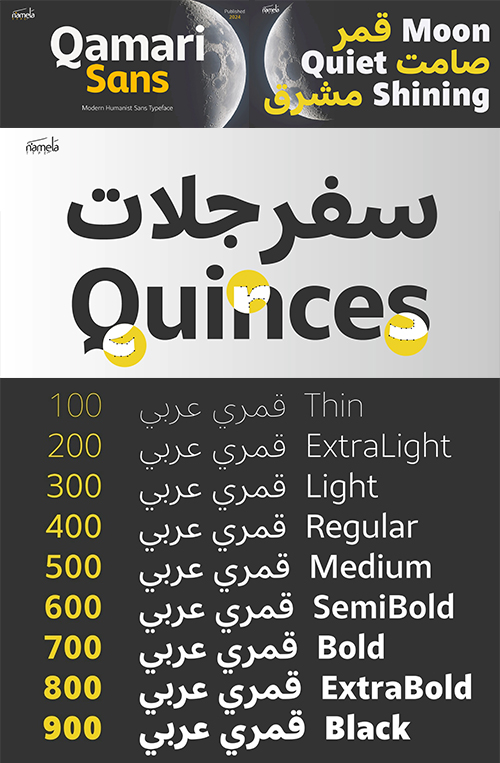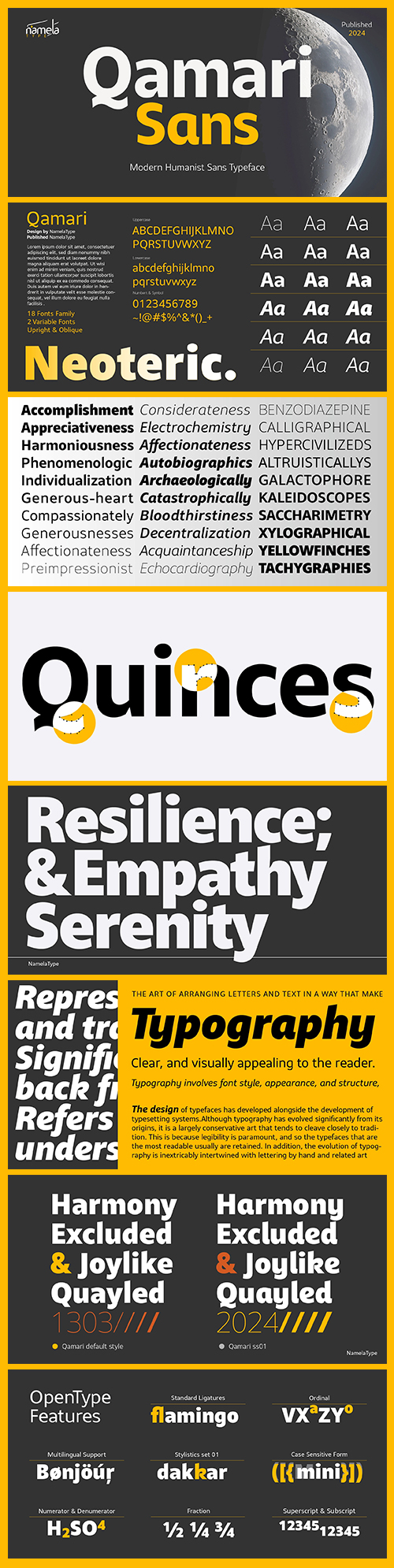
Qamari Sans - Latin & Arabic
Qamari Sans Font - A Modern Humanist Sans Typeface for Editorial, Apps
- Qamari Sans - A Modern Humanist Sans Typeface for Editorial, Apps. Great typography often appears effortless—but behind that simplicity lies a careful balance of structure, proportion, and clarity. Qamari Sans is a modern sans serif typeface that embodies these principles through a refined Latin design built for contemporary communication.
- Qamari Sans Arabic - A Modern Naskh-inspired Typeface for Editorial & Apps. Designing a contemporary Arabic typeface is never simple. It demands a deep understanding of historical forms, cultural nuance, and modern usability. Qamari Sans approaches this challenge by placing the Arabic script at its core—reinterpreting classical influences through a clean, modern lens.
Originally developed by Namelatype, Qamari Sans Modern Humanist Font reflects a philosophy centered on clarity and balance. In its Latin form, it stands as a versatile and elegant typeface, suitable for applications ranging from branding to digital interfaces. Design Foundation: Balance and Clarity At its core, Qamari Sans follows a minimalist sans serif approach. The design emphasizes low-contrast strokes, clean geometry, and controlled proportions, resulting in a visual language that feels both modern and timeless. Each letterform is crafted with precision, maintaining consistency across weights and sizes. The spacing and rhythm are carefully calibrated, ensuring readability in both display and text settings. This makes the font particularly effective in structured layouts where hierarchy and clarity are essential. The overall tone remains neutral yet refined—allowing content to take center stage while still delivering a subtle layer of sophistication. The Meaning Behind the Name Qamari derives from the Arabic word قمري, meaning “lunar” or “of the moon.” The name reflects qualities of softness and clarity—illumination without excess. This concept is mirrored in the design itself: a typeface that supports communication with elegance, rather than competing for attention. The name also resonates across cultures, reinforcing its suitability for multilingual design contexts. Key Design Characteristics Modern Minimalist Structure Qamari Sans features a clean geometric framework with low contrast, creating a balanced and contemporary appearance. High Readability Across Sizes Its carefully designed forms ensure clarity in both large headlines and smaller body text, making it highly adaptable. Consistent Proportions and Rhythm Uniform spacing and refined kerning contribute to a smooth reading experience and polished layouts. Designing a contemporary Arabic typeface is never simple. It demands a deep understanding of historical forms, cultural nuance, and modern usability. Qamari Sans approaches this challenge by placing the Arabic script at its core—reinterpreting classical influences through a clean, modern lens. Developed by Namelatype, Qamari Sans Arabic Modern Naskh-inspired Font offers a refined and highly functional Arabic font. While rooted in tradition, it moves beyond decorative complexity, presenting a streamlined sans serif interpretation suitable for digital and editorial environments. Design Inspiration: Naskh Reimagined At the heart of Qamari Sans lies the influence of Naskh calligraphy—one of the most widely used and historically significant Arabic writing styles. Known for its clarity and balanced proportions, Naskh has long served as a foundation for readable text. Qamari Sans translates these qualities into a modern typographic system. Curves are softened, strokes simplified, and structure optimized for consistency across sizes and platforms. Rather than imitating traditional calligraphy, the design distills its essence—preserving the natural rhythm and legibility of Naskh while adapting it to a contemporary framework. A Modern Approach to Arabic Form Qamari Sans adopts a low-contrast structure, reducing visual noise while maintaining the natural flow of Arabic writing. Each glyph is carefully constructed to ensure clarity, particularly in screen-based environments. Key characteristics include: Simplified stroke modulation for a clean, modern appearance Balanced proportions for visual harmony across text Open counters and spacing for improved readability Controlled curves that reflect calligraphic roots without excess ornamentation This approach creates a typeface that feels both familiar and forward-looking. The Meaning Behind the Name “Qamari,” meaning “lunar” or “moon-like,” reflects the font’s visual personality—subtle yet clear. Like moonlight, the design illuminates without overwhelming. This concept aligns closely with the principles of readability found in traditional Arabic writing: clarity first, elegance second. Technical Structure and Features Qamari Sans is built for professional Arabic typesetting, supported by advanced OpenType features: Required ligatures for proper letter connections Accurate placement of diacritics Localized forms for language-specific adaptation Refined kerning for consistent spacing Stylistic sets for subtle design variations These capabilities ensure reliable performance across complex Arabic text compositions. Weights, Styles, and Formats Qamari Sans is available in a multi-weight system, allowing designers to build hierarchy from headlines to body text. By avoiding excessive stylistic elements, the typeface adapts seamlessly across branding, editorial, and interface design. Weights, Styles, and Formats Qamari Sans is available in a multi-weight family, supporting a wide range of typographic applications—from bold headlines to extended reading text.